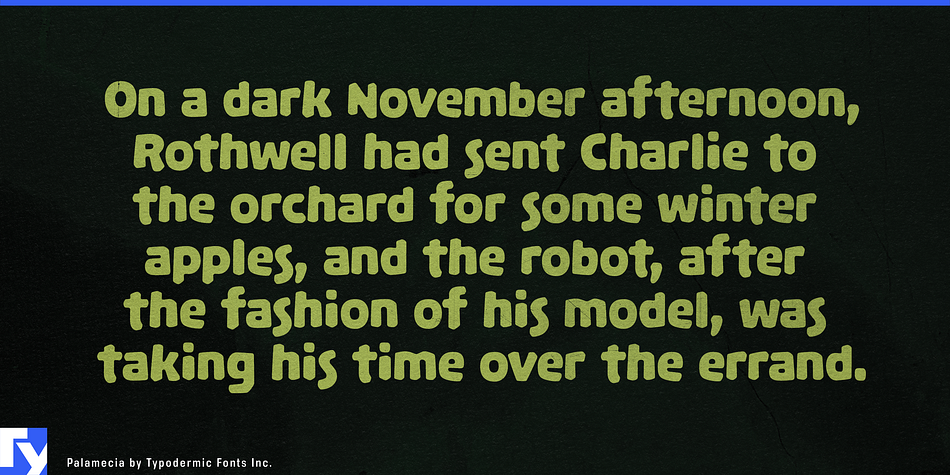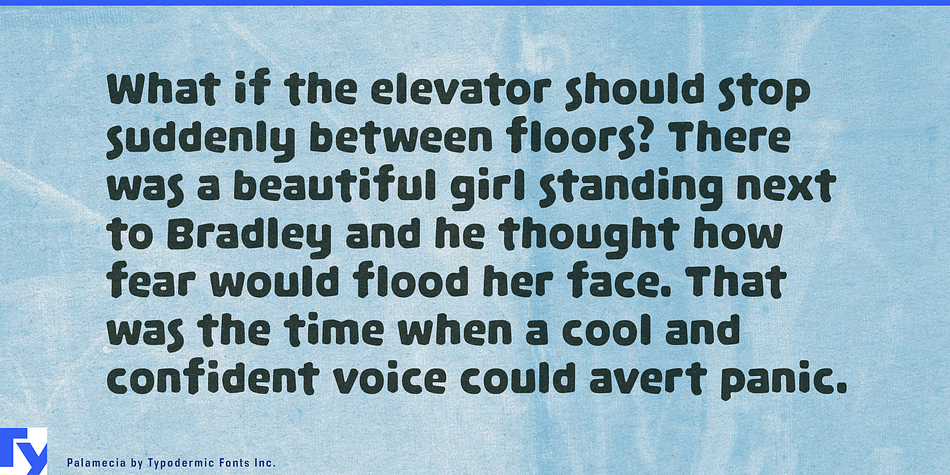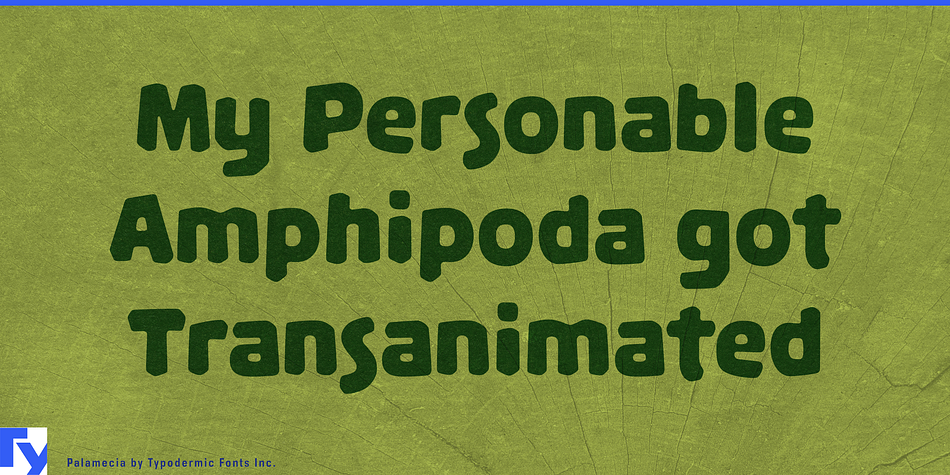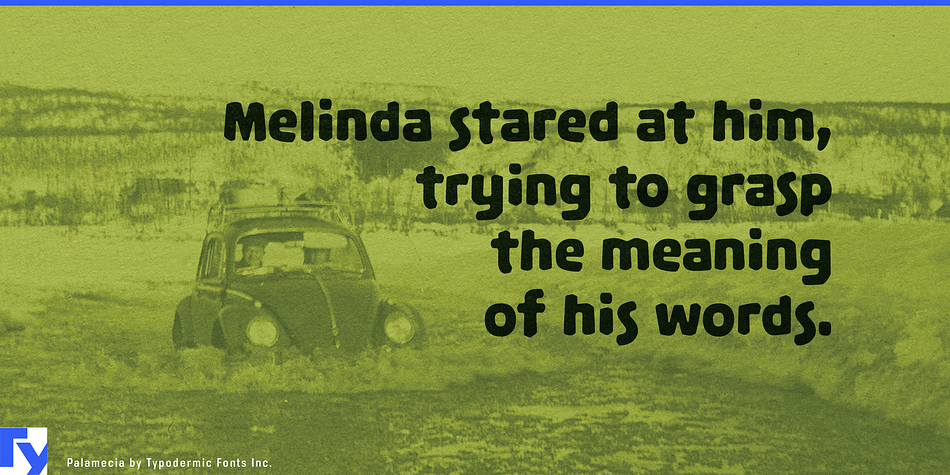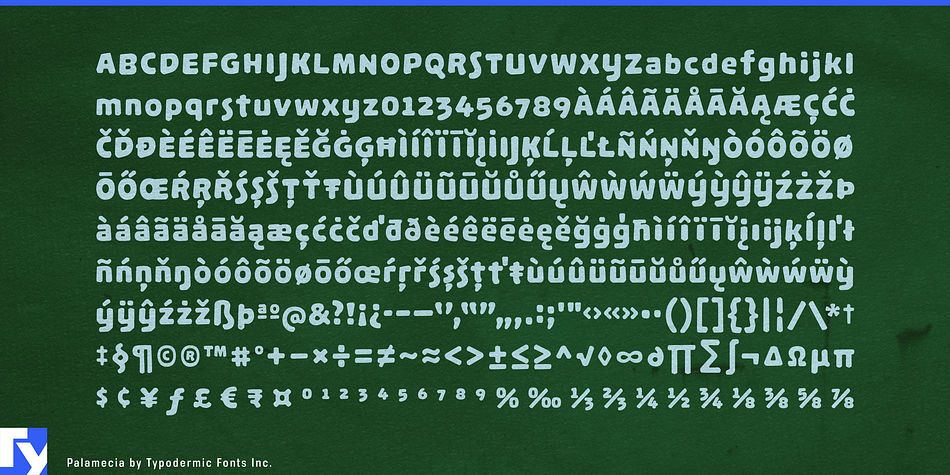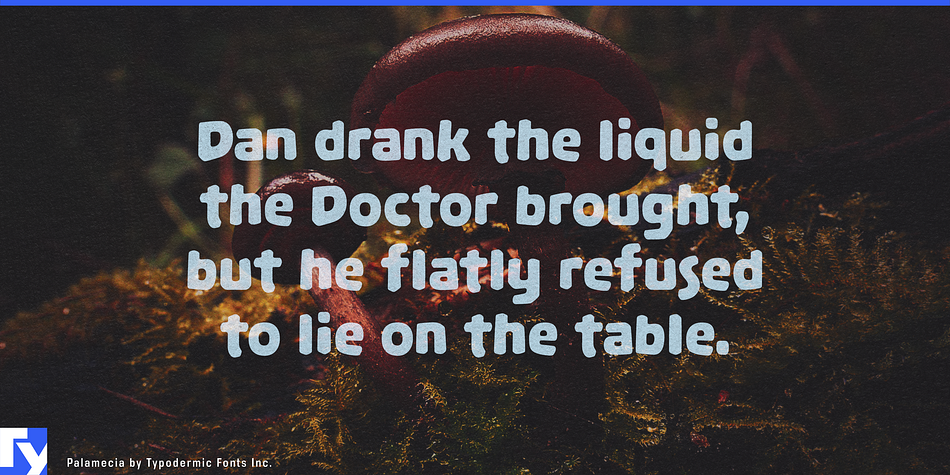
Palamecia is a display font published by Typodermic Fonts Inc.
Palamecia was designed to endure scaling and blurring on various user interface displays. At first glance it looks like a cartoon typeface, which was the goal, but the design of each character was informed by the effects of pixel scaling on legibility. Rather than using pen strokes as a base for each letter’s design, Palamecia’s shapes were designed as cutout silhouettes which were gradually whittled and chipped away.